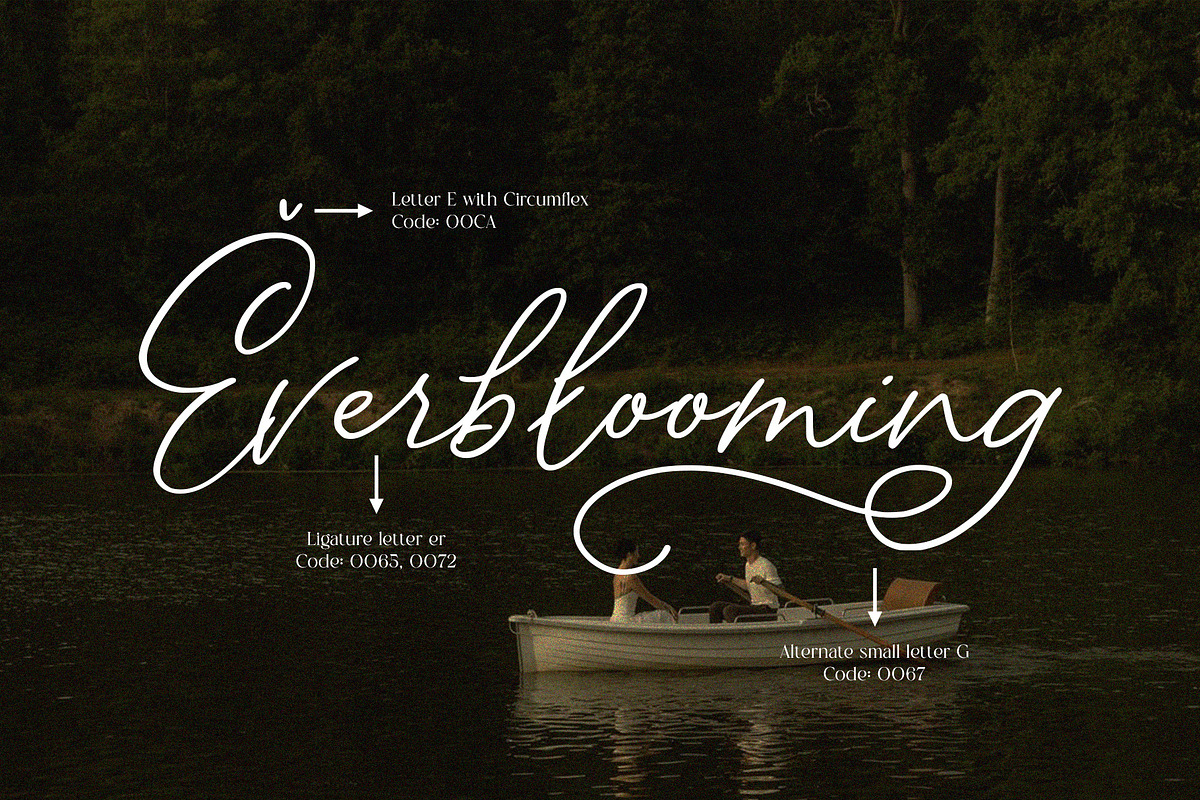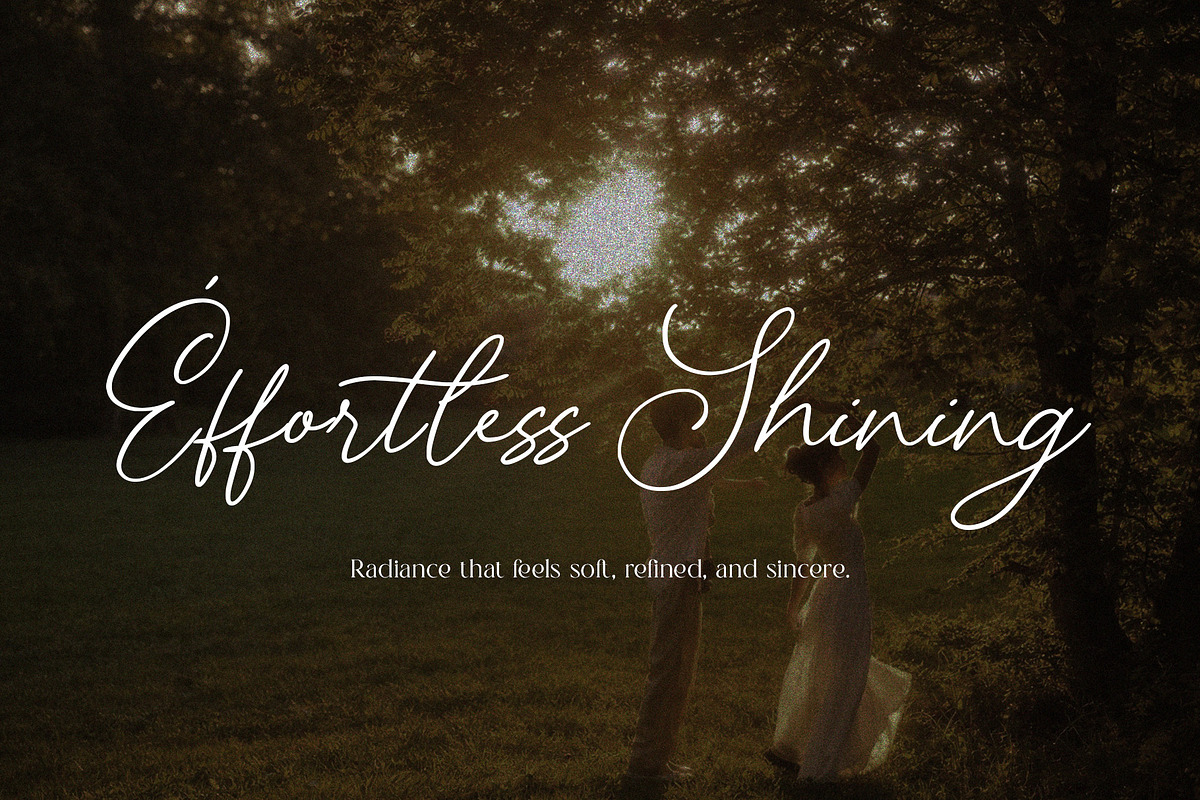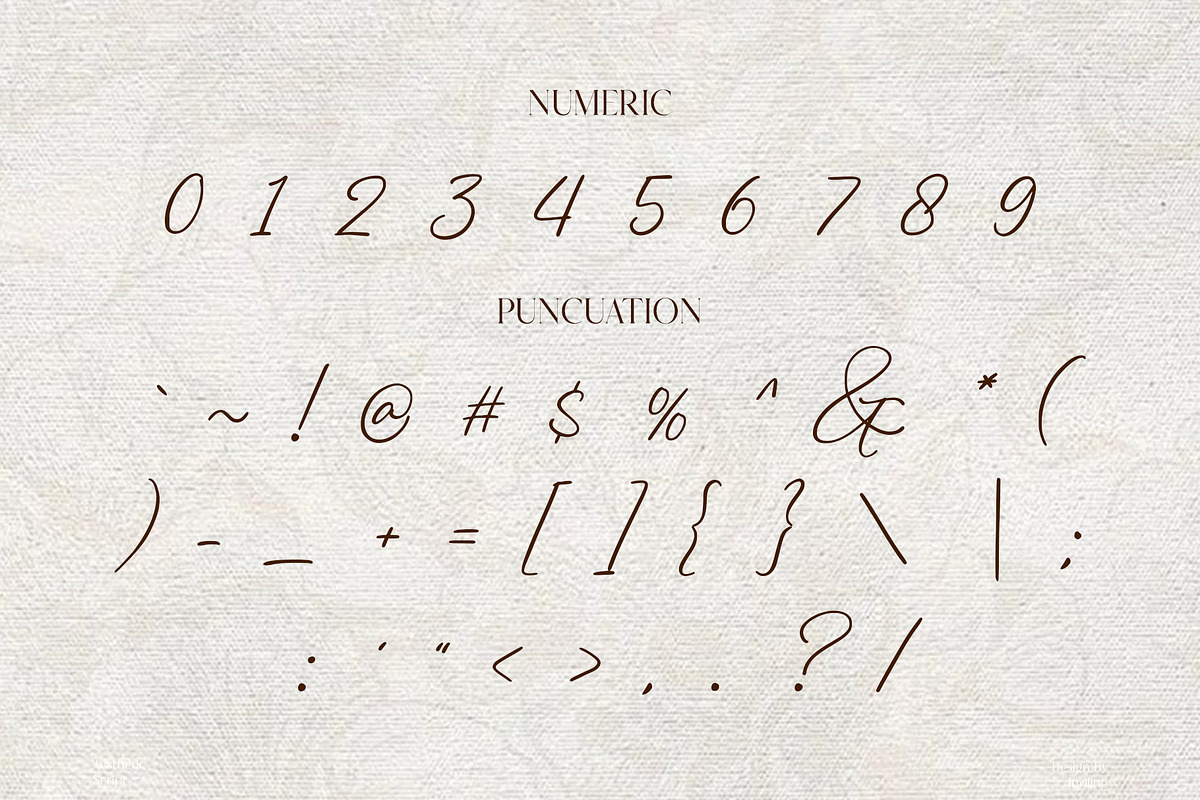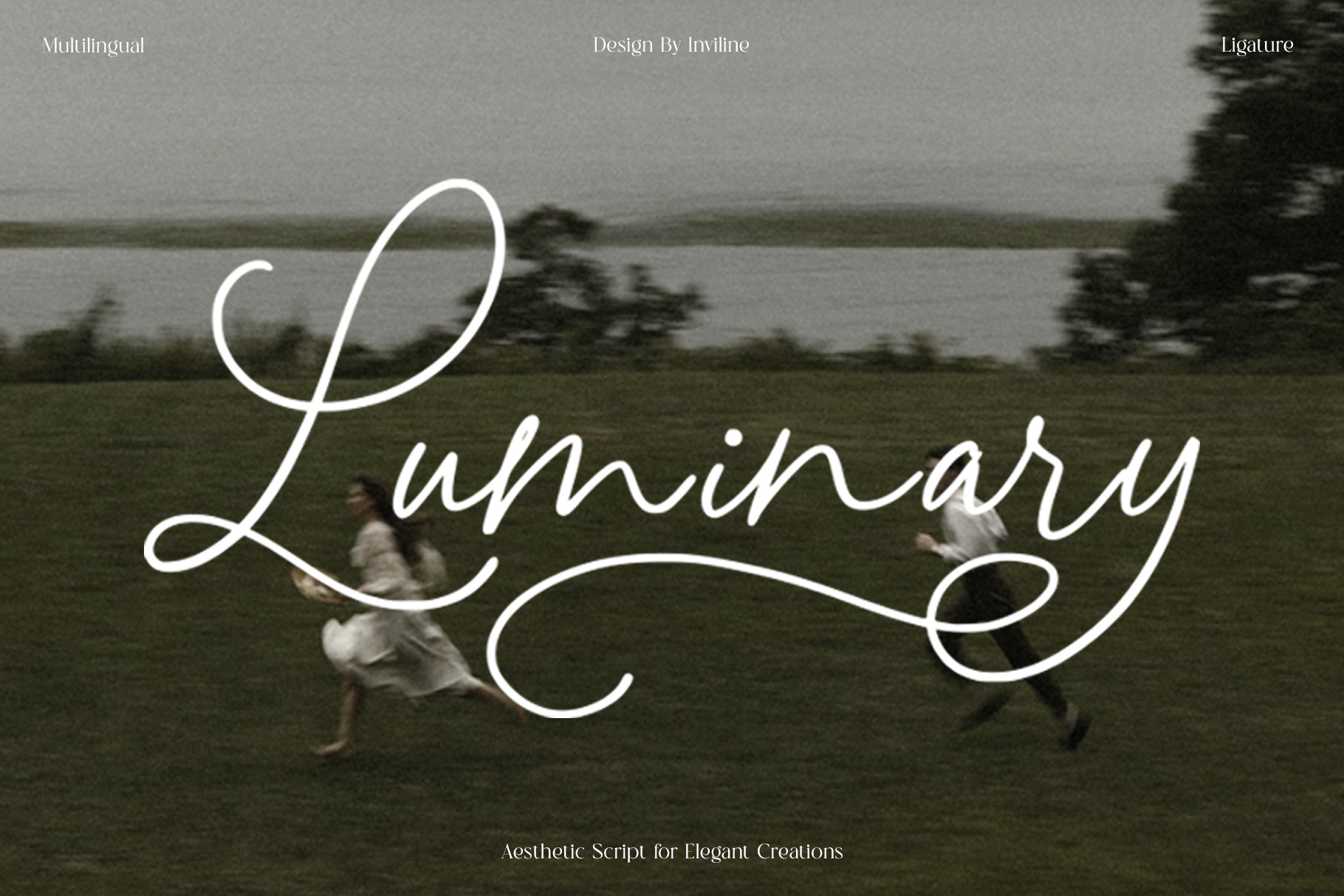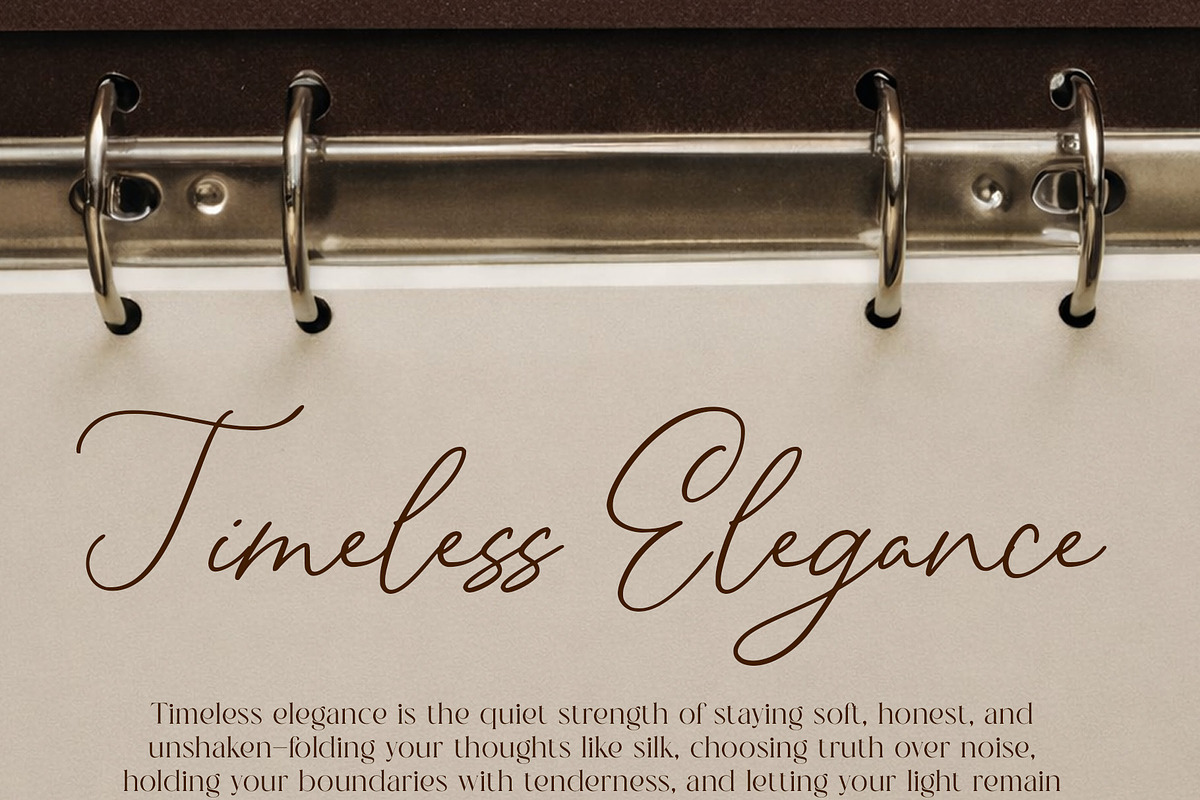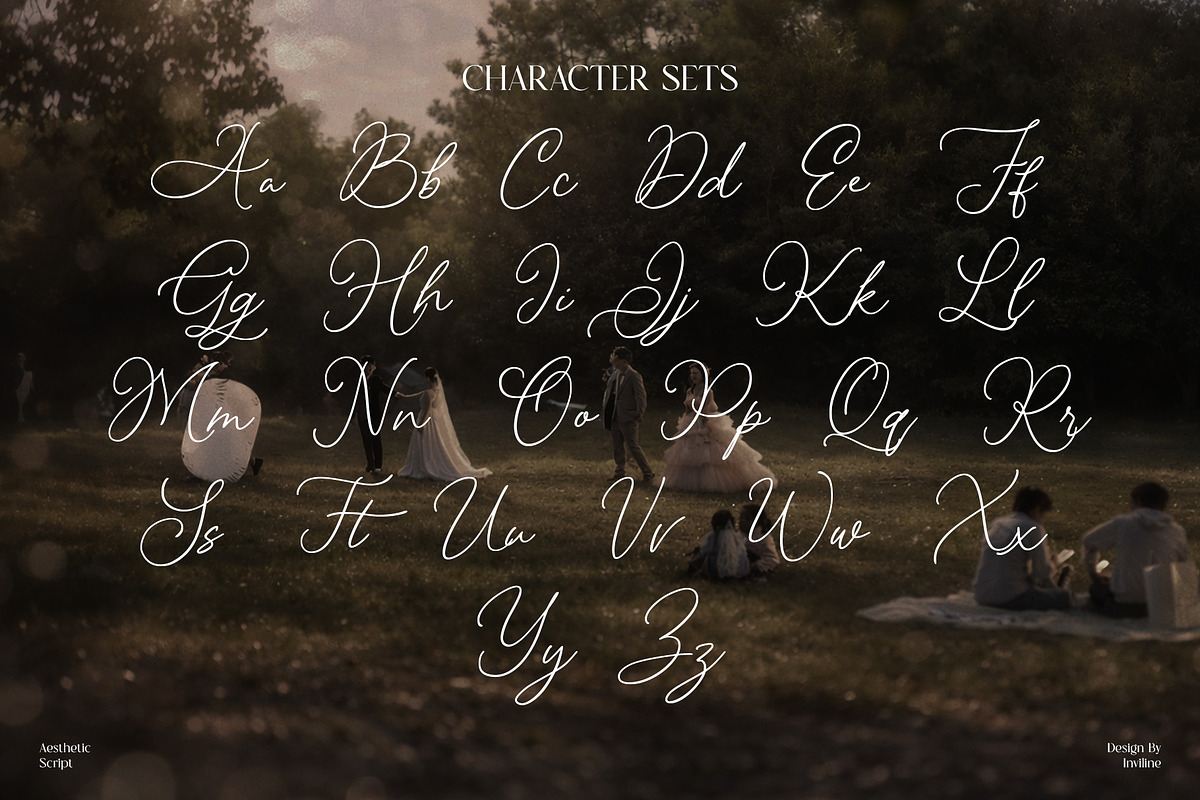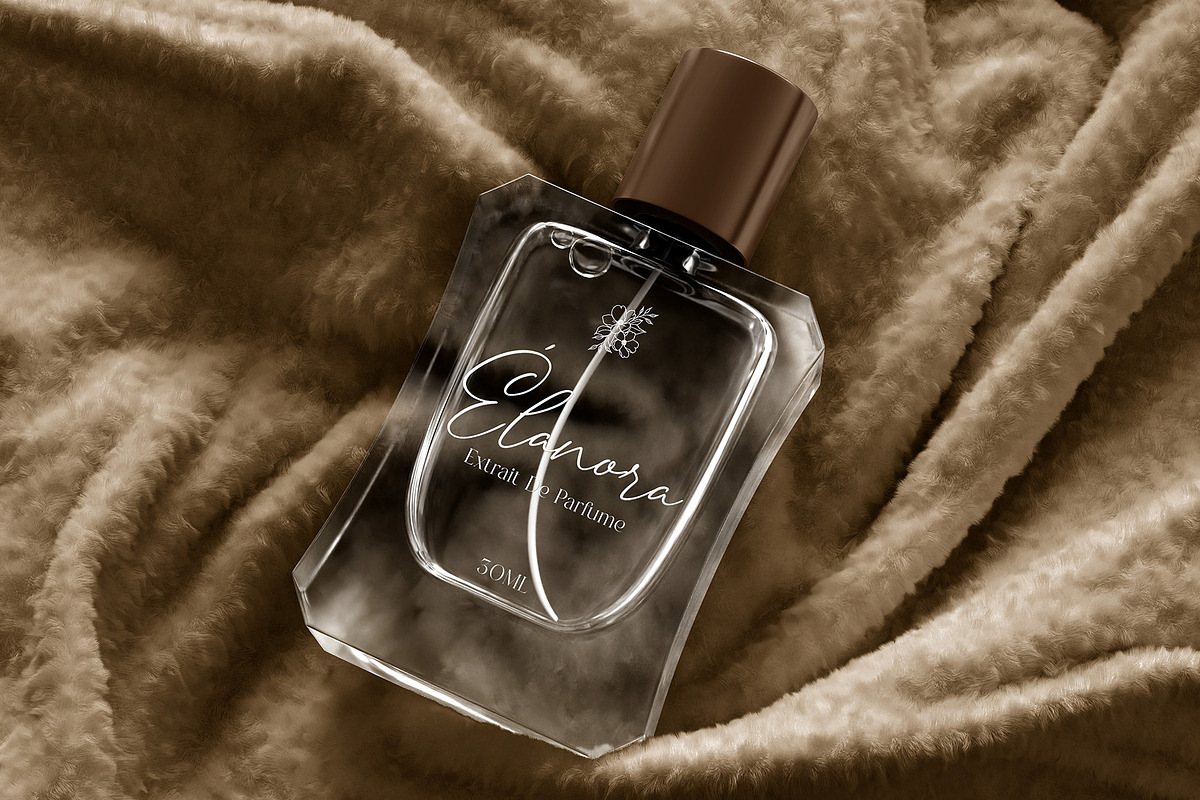
Luminary - Aesthetic Script Font
Luminary is a soft, elegant script that lives between quiet confidence and timeless beauty. It blends flowing, graceful strokes with clean structure, creating a refined rhythm that feels effortless yet intentional. The letters move naturally, forming smooth connections and delicate curves that bring warmth without overwhelming the eye. The mood is romantic, polished, and gently luminous like light touching silk.
Luminary works beautifully for wedding invitations, luxury branding, perfume labels, editorials, packaging, and poetic layouts where elegance needs to feel sincere rather than dramatic. Designed to feel refined, but stay personal.
- Uppercase & Lowercase Letters
- Elegant Ligatures